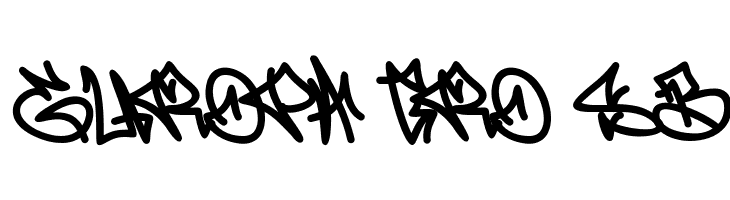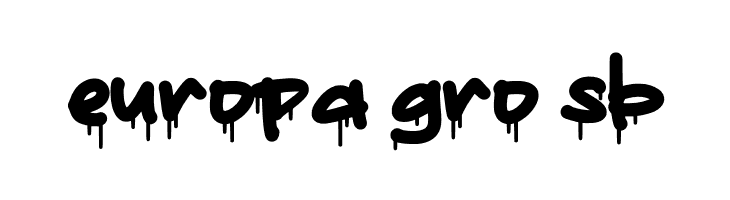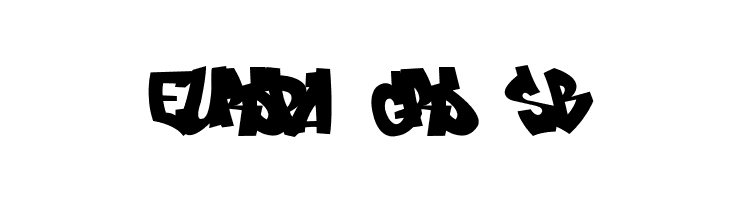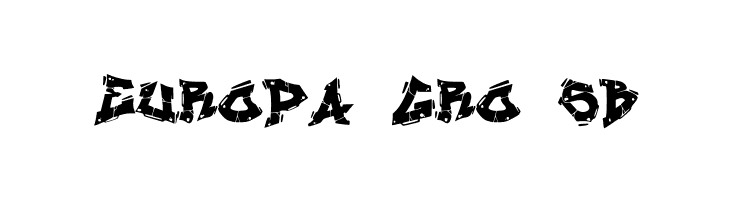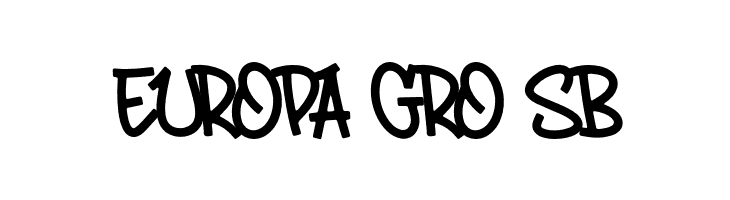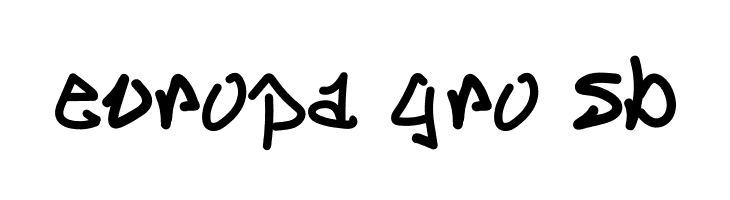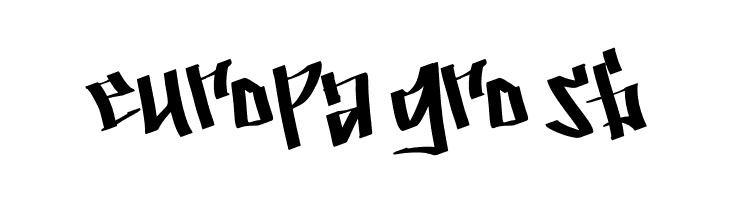
( Fonts by Press Gang Studios - Andeh Pinkard - www.pressgang-studios.com )
A bold, graffiti-inspired font with a playful, hand-drawn style.
A bold, decorative font with a three-dimensional, cartoonish style.
A bold, playful font with a dynamic, graffiti-inspired style.
( Fonts by www.junkohanhero.com )
A bold, graffiti-inspired font with a playful and edgy style.
( Fonts by Grafito Design - dibujosenlinea.ideasintegrales.net )
A bold, geometric font with a playful and modern style.
( Fonts by Glyphobet Font Foundry - Matt Chisholm - http://glyphobet.net/typography/ )
A bold, graffiti-inspired font with dynamic, high-contrast strokes.
A bold, angular font with a graffiti-inspired, dynamic style.
( Fonts by Steve Ferrera )
A bold, angular, and artistic font with a graffiti-like style.
( Fonts by Mr Fisk - Mike Larsson - fontorama.net )
A bold, playful font with irregular, hand-drawn shapes and a graffiti-like style.
( Fonts by www.fontosaurus.com )
A playful, bold, and hand-drawn font with a graffiti-like style.
( Fonts by Daniel Gauthier )
A bold, distressed font with a grunge, graffiti-inspired style.
( Fonts by www.junkohanhero.com )
A bold, distressed font with a rugged, graffiti-like style.
( Fonts by www.junkohanhero.com )
A bold, playful font with a hand-drawn, graffiti-like style.
A bold, dynamic font with a graffiti-inspired style.
( Fonts by Rodrigo German - RASDESIGN )
A bold, decorative font with an urban, graffiti-inspired style.
A bold, graffiti-inspired font with dynamic, irregular shapes.
( Fonts by Grafito Design - dibujosenlinea.ideasintegrales.net )
A modern, geometric font with bold, clean lines and a structured appearance.
( Fonts by Grafito Design - dibujosenlinea.ideasintegrales.net )
A pixelated, grid-based font reminiscent of retro digital displays.
( Fonts by Grafito Design - dibujosenlinea.ideasintegrales.net )
A bold, futuristic font with angular, geometric shapes.